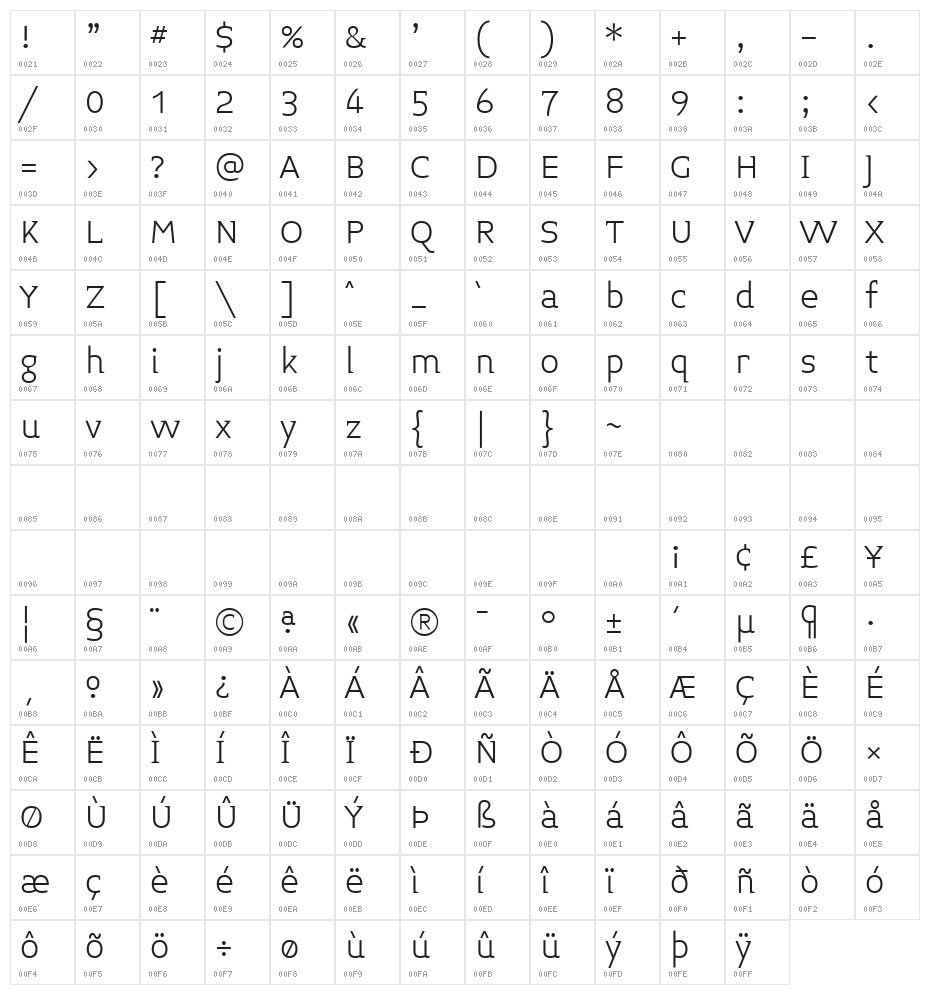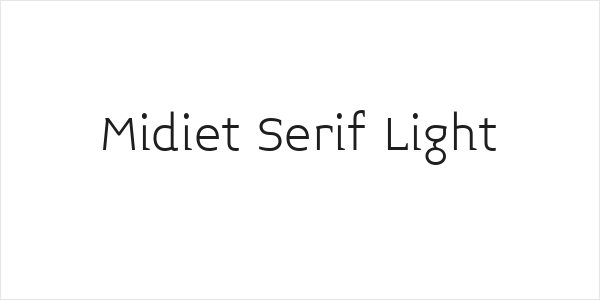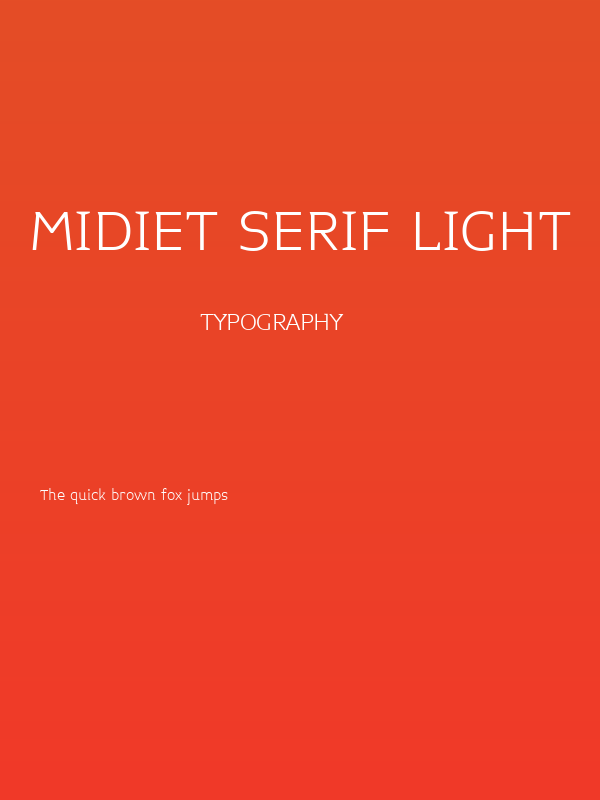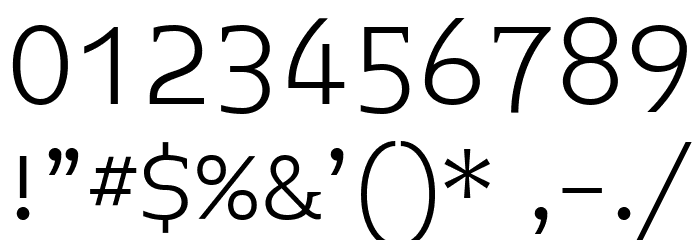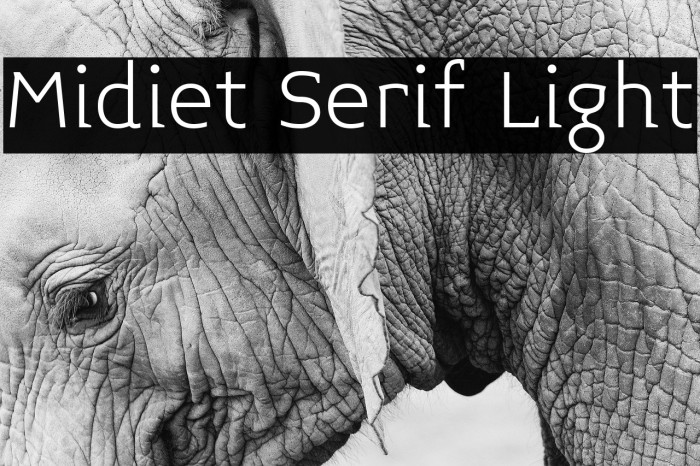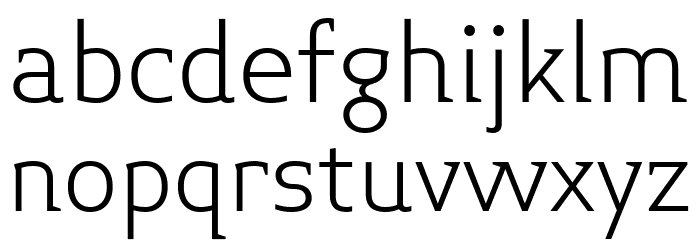
Midiet Serif Light Font
Midiet Serif Light Description
This font exhibits a clean and modern serif style with a light weight, offering a refined and elegant appearance. The characters are well-proportioned, featuring subtle serifs that add a touch of sophistication without overwhelming the overall design. The uppercase letters are tall and commanding, while the lowercase letters maintain a consistent and harmonious flow. The numerals are clear and easily distinguishable, making them suitable for various applications. Special characters are thoughtfully designed, ensuring they blend seamlessly with the rest of the typeface. The overall aesthetic is both contemporary and timeless, making it versatile for a wide range of design projects.
| Proposed Projects | Ideal for editorial design, branding, and sophisticated print materials. |